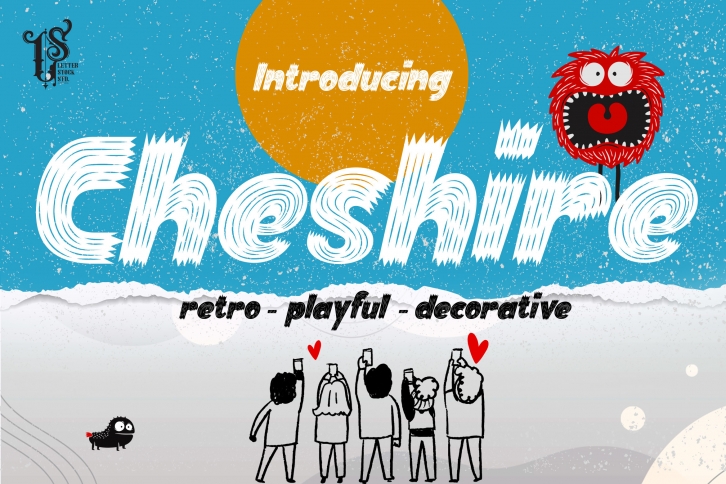
Cheshire is a cool, bold and thick lettered display font. No matter the topic, this font will be an incredible asset to your fonts’ library, as it has the potential to elevate any creation.Â